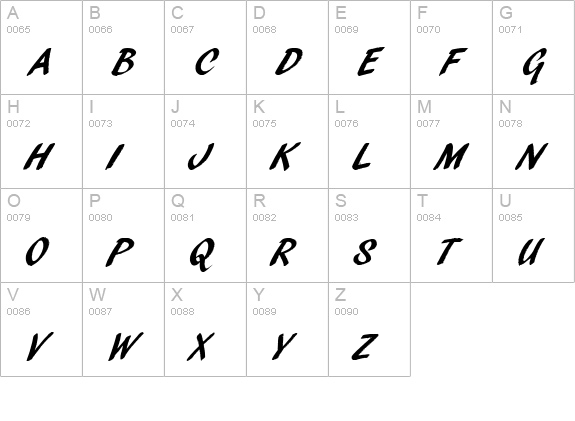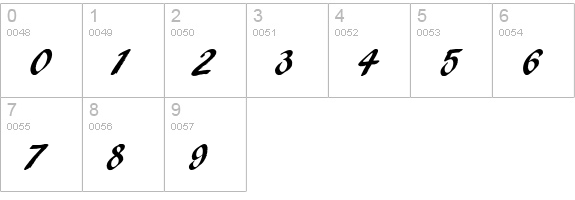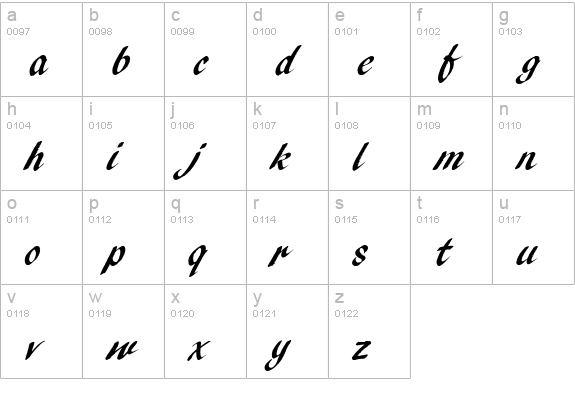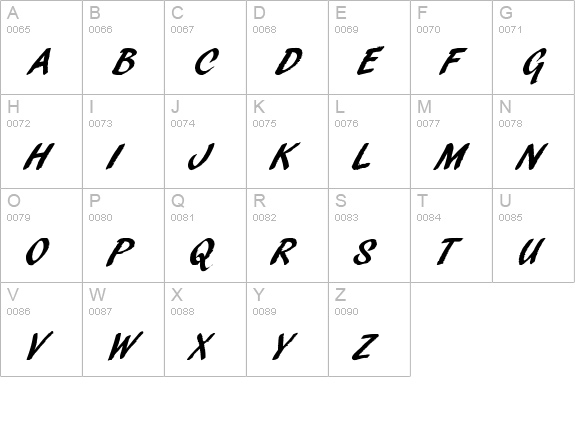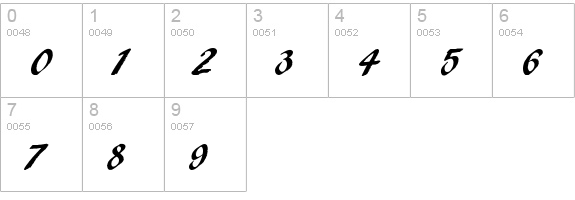
Pencil-Regular is the standard, neutral variant in the Pencil typeface family \xE2\x80\x94 well suited to general body text, paragraphs, and standard typographic work.
Pencil-Regular font is a charming and versatile typeface that brings a touch of whimsy to any design. Perfect for adding a handwritten feel to your projects, this font exudes creativity and playfulness. With its smooth lines and quirky details, Pencil-Regular is sure to stand out and make a statement. What's even better is that Pencil-Regular is completely free to download at FontsMarket.com! You can easily access this delightful font and enhance your designs with its unique character. Whether you're working on a fun poster, a creative logo, or a playful branding project, Pencil-Regular is the perfect choice to add that extra bit of flair. Download it today and let your creativity shine with this fantastic font.